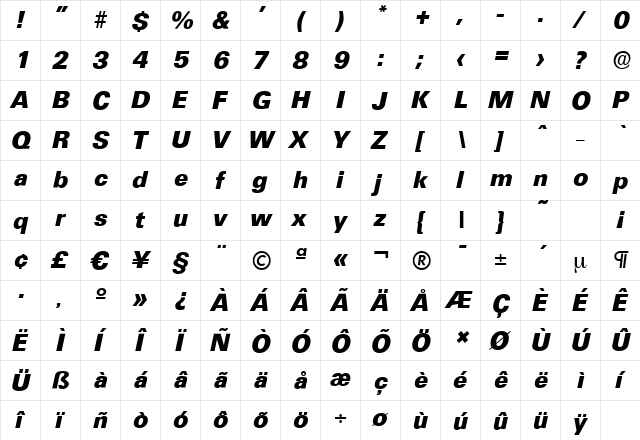
UltimateSerial-Xbold Italic Font Preview
Design Context for UltimateSerial-Xbold Typeface
UltimateSerial-Xbold takes a measured approach to typography — its balanced proportions and neutral character make it a reliable workhorse for both digital and print work. Its italic angle brings a sense of urgency and motion to the letterforms. The heavy weight commands attention and anchors typographic hierarchies.
Pro Tip: Use UltimateSerial-Xbold for emphasis, pull quotes, and subheadings where its slanted energy can add rhythm to the layout.